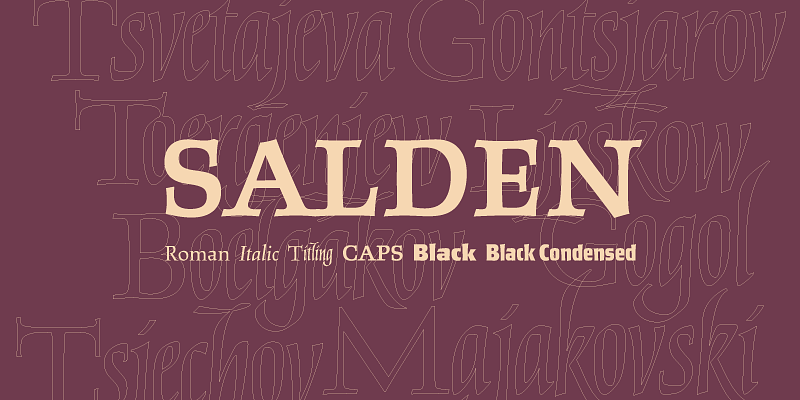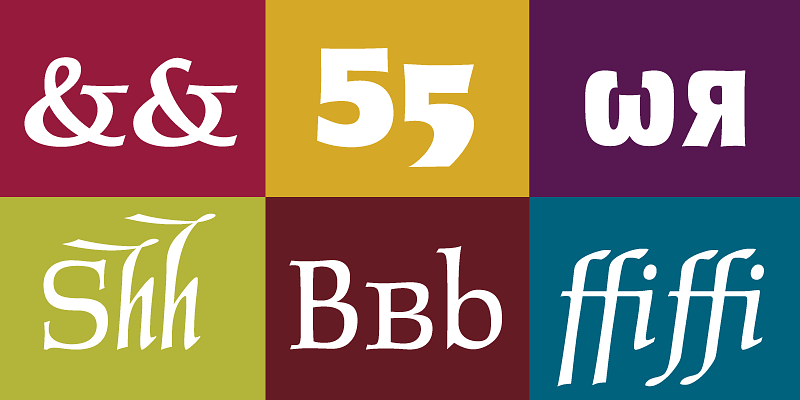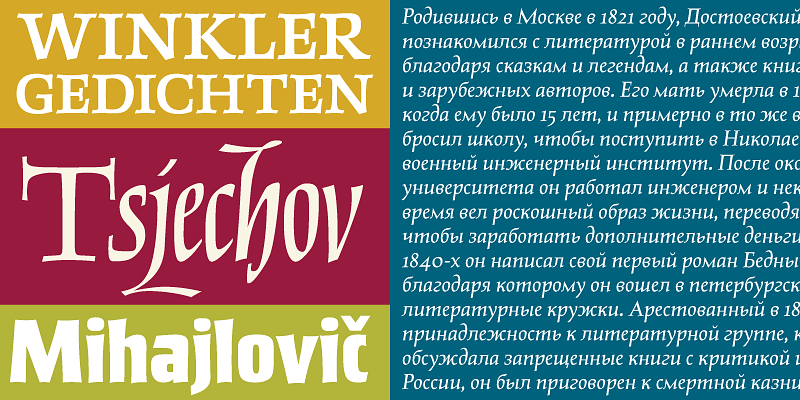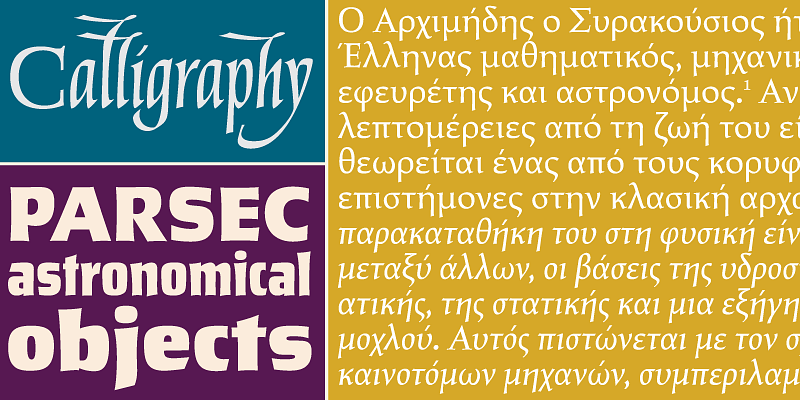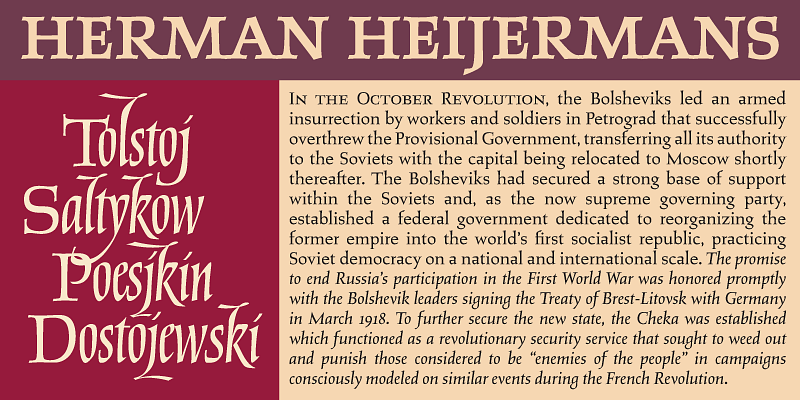
These fonts are tribute to the work of Helmut Salden, who was dubbed the face of the Dutch book, and whose work is considered essential in Dutch design history, and whose influence over Dutch designers ranges far and wide.